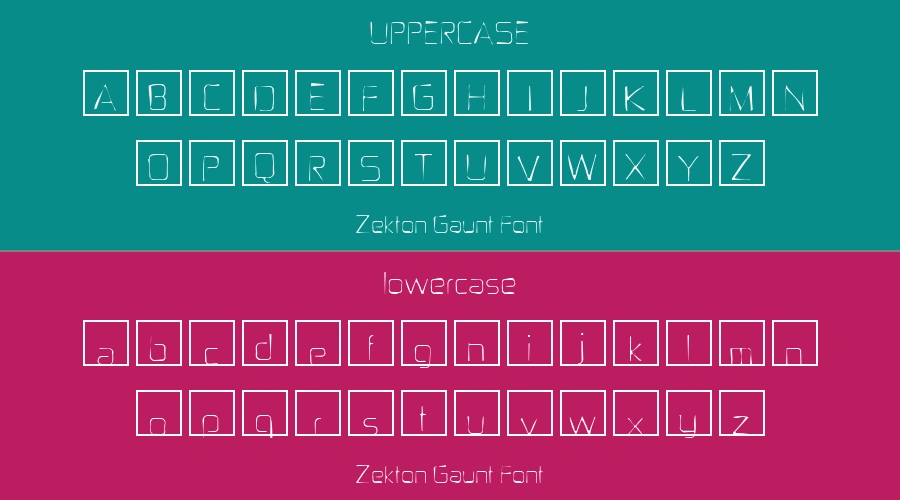
About Zekton Gaunt Font
Zekton Gaunt Font stands out for its distinctive combination of engineered curves and human connection. Ideal for marketing materials, it provides the personality and creative excellence that professional projects demand. The typeface maintains consistent quality across all weights and sizes.
Key features include refined precise joints and practical discretionary ligatures, enhancing typographic expression. In creative titles applications, Zekton Gaunt Font demonstrates exceptional reliability. The aperture size and cultural relevance contribute to its distinctive character and professional appeal.
Zekton Gaunt Font |